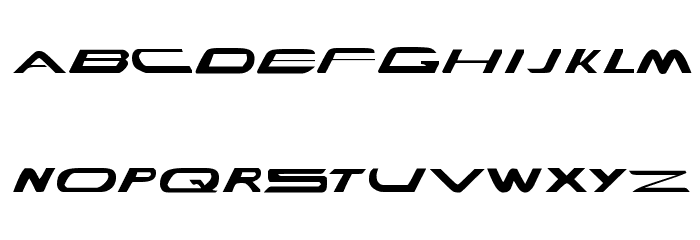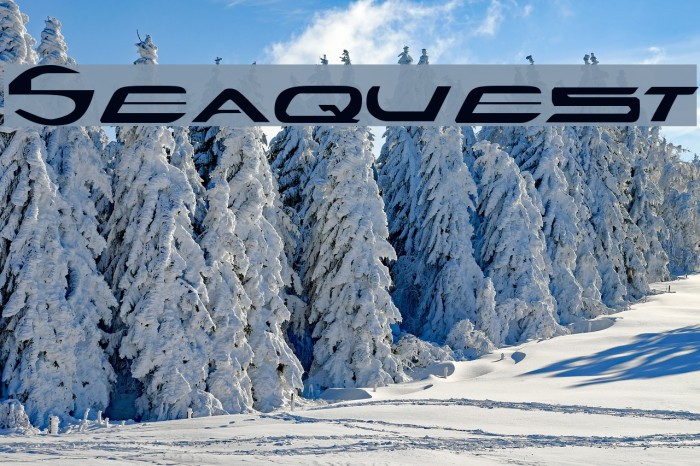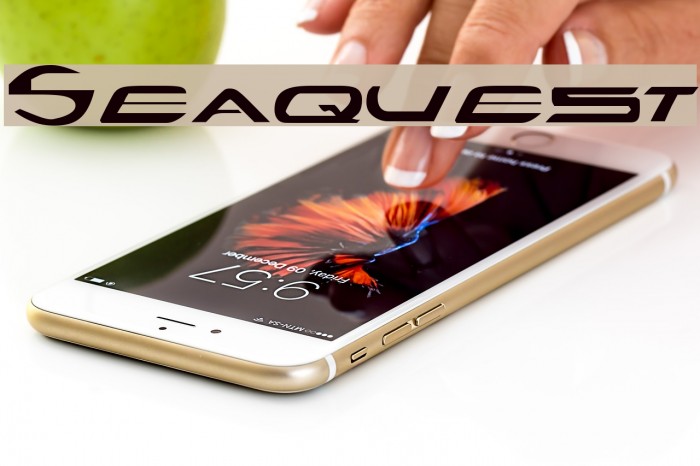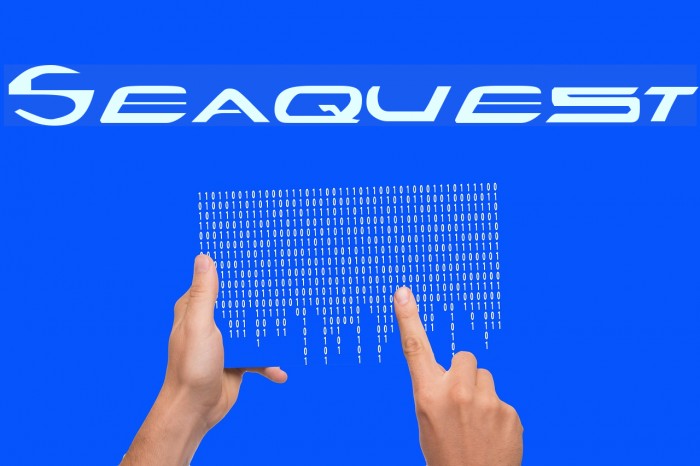
Seaquest Font
This font features a futuristic and sleek design, characterized by its sharp angles and geometric shapes. The letters are bold and dynamic, with a distinct sci-fi aesthetic. The uppercase letters have a unique angularity, while the lowercase letters maintain a consistent style with rounded edges and cut-out sections, adding to the modern feel. The font lacks traditional serifs, opting instead for a clean, streamlined appearance. It is highly stylized, making it suitable for projects that require a modern and edgy look. The overall design is cohesive, with each character complementing the others, creating a visually striking typeface.
A futuristic, angular font with a sleek, sci-fi aesthetic.
- Proposed Projects: Ideal for sci-fi movie posters, video game titles, tech branding, and futuristic-themed designs.